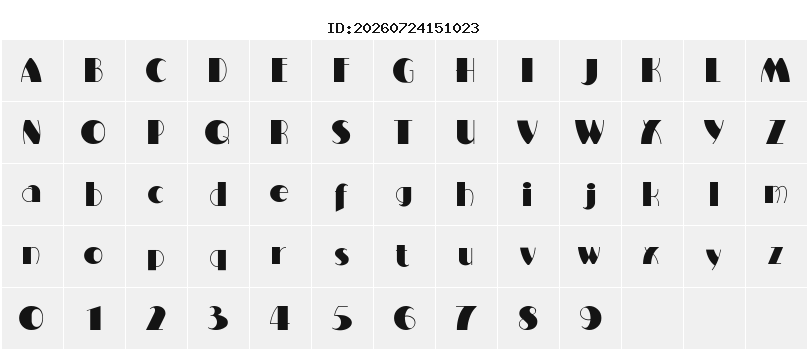
MiltonBurlesque Preview
• Font Name: MiltonBurlesque
• Full Font Name: MiltonBurlesque
• PostScript Name: MiltonBurlesque
About MiltonBurlesque.ttf
MiltonBurlesque.ttf is a modern, elegant sans-serif font designed for ultimate readability and visual harmony. Perfect for branding, headlines, web design, and print materials.